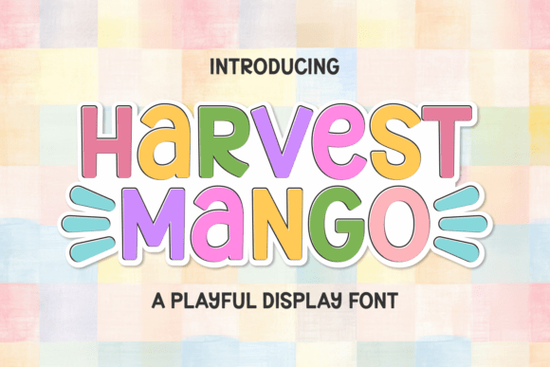
Harvest Mango Font is a bold, playful display typeface that brings a sweet, summer-inspired energy to any creative project. Designed for visibility and personality, it works beautifully on everything from merchandise branding and logo design to stickers, scrapbooking pages, and kids' crafts. If you've been searching for a handwritten-style font that feels cheerful without losing professionalism, this one deserves a closer look.
What Makes Harvest Mango Font Stand Out?
Not all display fonts are created equal. Some look great in previews but fall flat in real designs. Harvest Mango is different because it balances boldness with playfulness. The thick letterforms are easy to read even at smaller sizes, and the slightly irregular handmade feel gives it a warmth that polished fonts often lack.
Here's what you get with this font:
- Thick, eye-catching strokes that hold up on stickers, t-shirts, and posters
- A casual, modern style that fits summer themes, kid-friendly projects, and cheerful branding
- Versatile use cases from tote bags and tumblers to banners and school resources
- A handmade feel that adds personality without looking sloppy
If you're familiar with fonts like Kawaii Font or Cute Crayon Font, you already know how popular playful typefaces are for crafters and small businesses. Harvest Mango fits right into that space but with its own distinct tropical personality.
Who Is This Font Best For?
Harvest Mango is a solid choice for a wide range of creators:
- Print-on-demand sellers designing t-shirts, mugs, and tote bags for seasonal shops
- Small business owners building a fun, approachable brand identity
- Teachers and parents creating classroom resources, worksheets, or party invitations
- Scrapbookers and planner lovers who want headers and quotes that pop off the page
- Baby-themed designers working on nursery decor, shower invitations, or milestone cards
Its sweet and unique character also makes it a great companion to bolder display fonts. For example, if you're building a layered design, you could pair the Harvest Mango typeface with something more structured to create contrast and visual interest.
How Does It Compare to Other Display Fonts?
There are plenty of display fonts on the market, so how does Harvest Mango measure up? Let's look at a few comparisons.
Compared to Skyline Font, which leans geometric and urban, Harvest Mango is much more relaxed and organic. It's the kind of font you'd use for a beachy summer sale rather than a city skyline poster.
Alongside American Vibe Font, you'll notice a different mood entirely. American Vibe has a retro, patriotic feel, while Harvest Mango brings tropical sweetness and casual charm. Both are bold display fonts, but they serve very different design needs.
If you've used a crayon-style font for kids' projects before, Harvest Mango offers a similar playful energy but with cleaner lines and more versatility for branding and merchandise. It doesn't scream "children only" it works across age groups and project types.
What Projects Work Well With This Font?
Because Harvest Mango is thick enough to read clearly and playful enough to catch the eye, it works well across many formats:
- T-shirts and apparel especially summer, vacation, and tropical-themed designs
- Stickers and decals its bold weight makes it easy to cut and weed
- Social media graphics quotes, sale announcements, and story templates
- Wedding and baby shower invitations for a lighthearted, sweet tone
- Teacher resources headers, bulletin board letters, and reward charts
- Branding and logos for businesses that want to feel friendly and approachable
It's also worth noting that this font pairs nicely with more whimsical options like those found in the kawaii-style display fonts collection, giving you plenty of creative flexibility when building themed design sets.
Is Harvest Mango Worth Adding to Your Font Library?
If you regularly work on projects that call for a fun, bold, and cheerful typeface, then yes. Harvest Mango fills a specific niche it's not too childish, not too formal, and not too trendy. It's the kind of font you'll reach for again and again when a project needs a dose of personality and warmth.